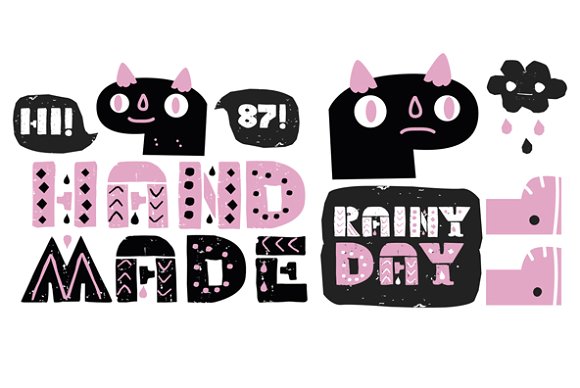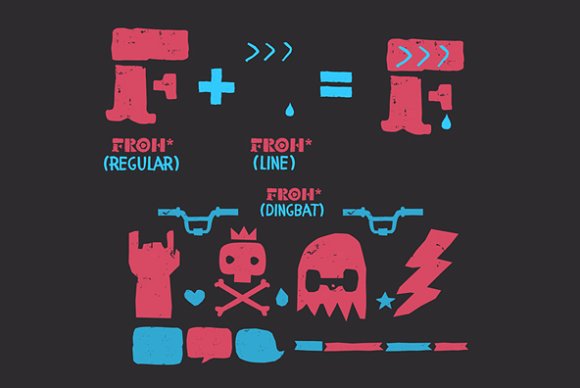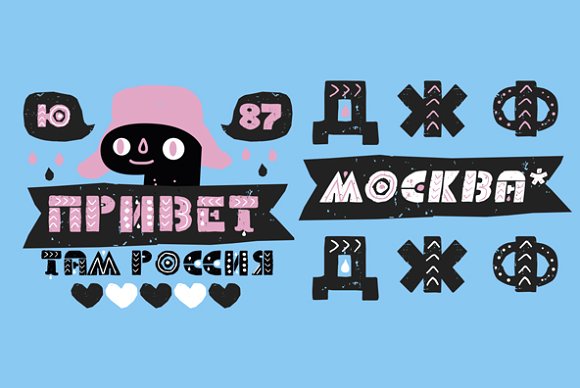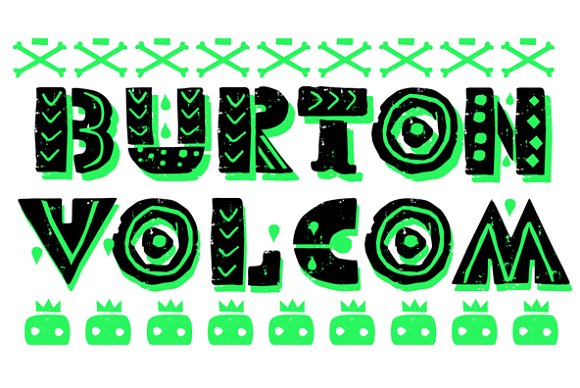
The Joy of Discovery: Finding the Perfect Font for Your Creative Projects
Have you ever been in the middle of a design project, and suddenly, you’re stuck on finding the perfect font? I recall a recent experience where I was working on a whimsical illustration for a children’s book, and my usual go-to fonts just weren’t cutting it. The text needed to be playful, yet readable, and that’s when I stumbled upon the Froh Font created by Rodrigo Typo. It was love at first sight! 😍
A Personal Review of Froh Font
As a designer, I’m always on the lookout for fonts that can bring a unique touch to my projects. Here’s my honest review of Froh Font:
- ✨ Playful and Whimsical: Froh Font has a delightful, hand-crafted feel that adds a touch of personality to any design.
- ✅ Versatile: It works beautifully for titles, headings, and even short paragraphs of text.
- 💡 Inspires Creativity: The font’s unique character set and OpenType features encourage experimentation and creativity.
While Froh Font is amazing, there are a few things to keep in mind:
- 🤔 Limited Use in Body Text: Due to its playful nature, Froh Font might not be the best choice for long blocks of body text. It’s perfect for headings, titles, and short paragraphs, but may not be as readable for extended reading.
- ⚠️ Some Characters May Not be Suitable for All Projects: A few characters in the font may have an unconventional design, which might not fit every project’s tone or style.
The Story Behind Froh Font
Rodrigo Typo, the creator of Froh Font, is a talented designer with a passion for crafting unique and functional fonts. According to Rodrigo, Froh Font was inspired by his love of playful, hand-drawn typography and his desire to create a font that would inspire creativity in designers and illustrators. Although the exact story behind Froh Font’s creation is not well-documented, it’s clear that Rodrigo’s goal was to create a font that would bring a touch of whimsy and personality to designs.
| Font Name | Froh Font |
| Author | Rodrigo Typo |
Q: What is Froh Font best used for?
A: Froh Font is perfect for designs that require a playful, whimsical touch, such as titles, headings, and short paragraphs of text.
Q: Is Froh Font suitable for body text?
A: While Froh Font is a beautiful font, it may not be the best choice for long blocks of body text due to its playful nature.